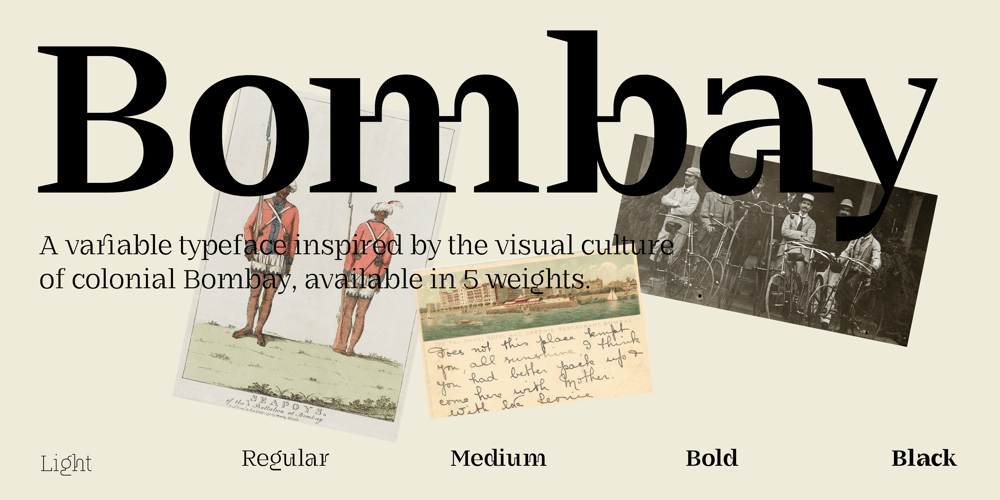
MV Bombay
MV Bombay font
MV Bombay Font Family was designed by Manav Dhiman and published by ManVsType. MV Bombay contains 11 styles and family package options. Bombay is serif type family by ManVsType. It is ideal to use at larger sizes as a display font. The family comes in 5 weights in 2 styles (normal stem height and low stem height).This font is variable in its weight and “connection” heights in the letters a, b, d, h, m, n, p, q, r and u. The typeface has a number of ligature including an R+s ligature that automatically turns into the ₹ (rupee symbol) to solve a major problem in the Indian subcontinent where people don’t know how to type it.Bombay is inspired by the colonial version of the city. The city being a melting pot of all kinds of people. Poets, writers, filmmakers enjoyed the city and it quickly became the cultural hub of the entire country.